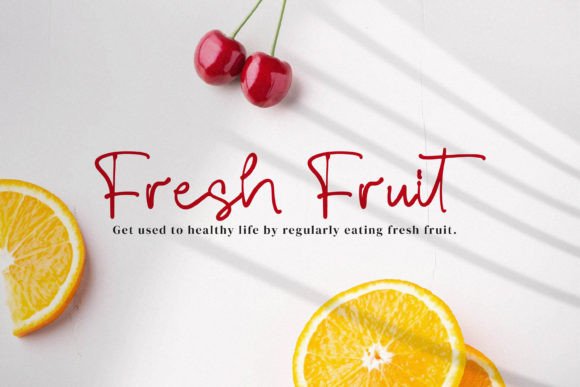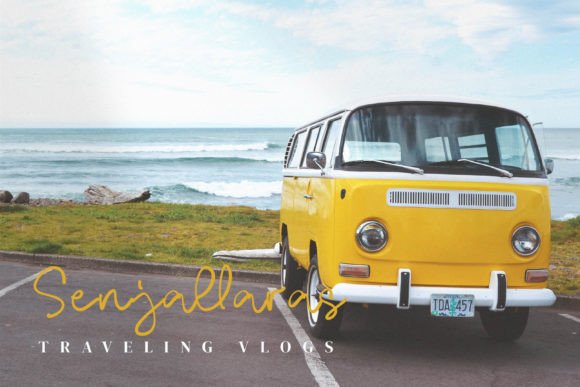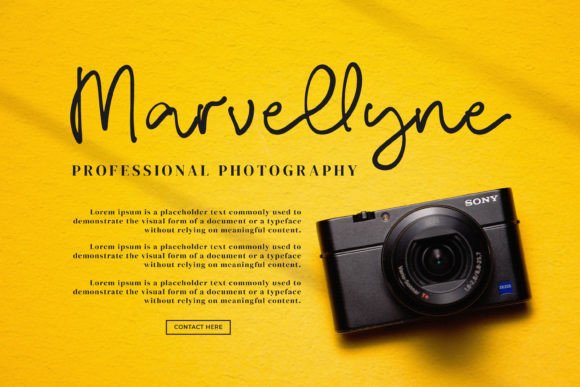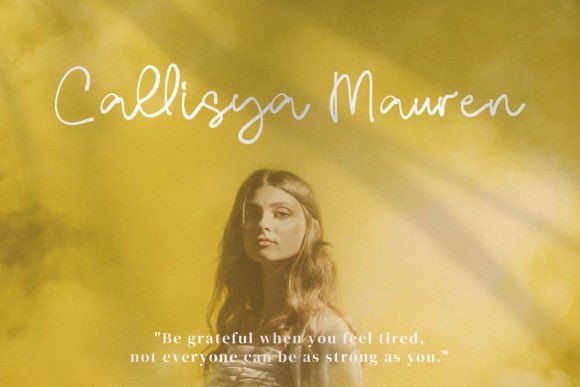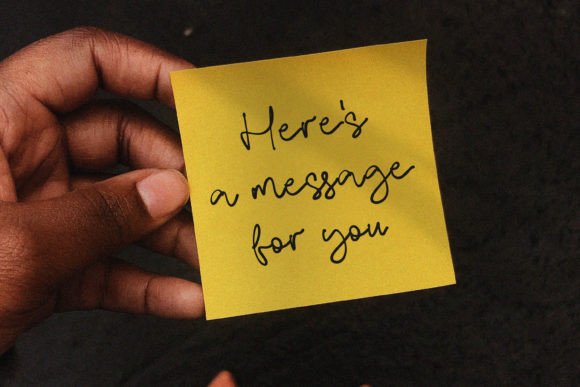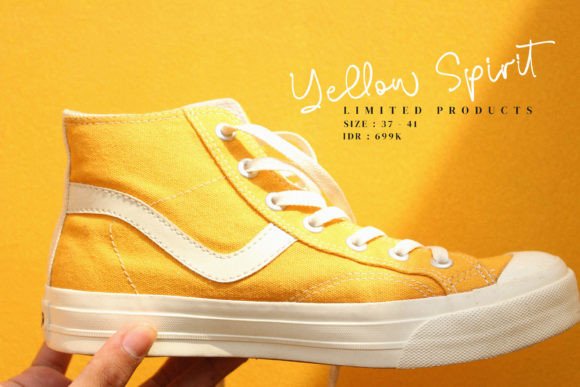
Introduction to Resmaulli Font
Have you ever stared at a blank page, pencil in hand, and felt the weight of creative expectation? The pressure to craft something unique, something that stands out from the crowd? For designers, this moment is all too familiar. But what if you had the perfect tool to unlock your creative potential? Enter the Resmaulli Font, a premium modern handwritten typeface that’s about to revolutionize your design projects.
With its stunning, high-quality design, the Resmaulli Font is the ultimate design resource for any creative project. Whether you’re working on a logo, branding project, or product packaging, this versatile font is sure to add a touch of elegance and sophistication. And the best part? It’s available for free download, complete with a transparent background, making it easy to integrate into your design.
Key Features of Resmaulli Font
- High-quality design resource suitable for creative projects, available for free download.
- Supports a range of languages, making it a versatile design resource for multilingual projects.
- Features a unique, modern aesthetic, setting it apart from other fonts in its category.
Honest Review: Resmaulli Font
As a designer, I’m always on the lookout for high-quality design resources to elevate my creative projects. Recently, I stumbled upon the Resmaulli Font, which caught my attention with its unique and modern aesthetic.
Here are some things that work well for me: ✨
- Customizable and versatile: The Resmaulli Font is highly customizable, allowing me to adjust its size, color, and style to suit my design needs.
- High-quality design: The font is crisp and clean, making it perfect for any creative project.
However, there are a few limitations: ⚠️
- Limited font styles: While the font is highly customizable, it only comes in a limited number of styles, which may not be suitable for every design project.
- No bold or italic options: I had to rely on other fonts to add emphasis to my text, which was a bit of a workaround.
Overall, I’m impressed with the Resmaulli Font, and I would definitely recommend it to designers looking for a high-quality, modern font for their creative projects.
How to Use Resmaulli Font
The Resmaulli Font is a versatile design resource ideal for various creative projects. With its high-quality and transparent background, this font can elevate your designs to the next level.
The Resmaulli Font is suitable for a wide range of creative projects, including graphic design, digital art, and even branding. It’s also a great resource for designers who need a high-quality font with a transparent background.
Experiment with different font sizes, colors, and combinations to create unique and visually appealing designs. You can also use the font in conjunction with other design elements to add depth and texture to your work.
Q: Can I customize the Resmaulli Font for my specific design project?